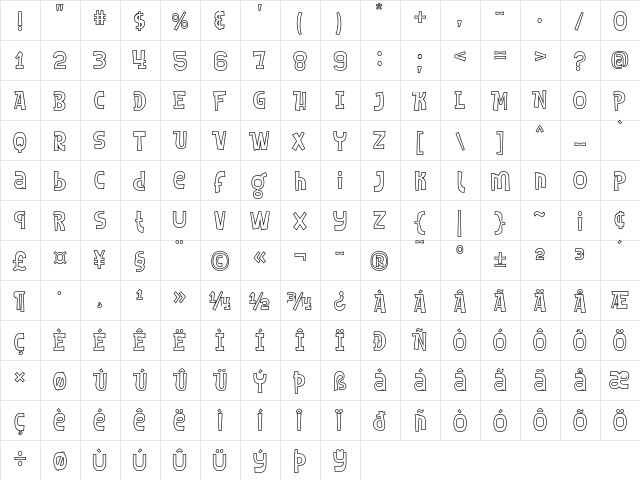
SHEROO Outline Regular
Design Context for SHEROO Outline Typeface
SHEROO Outline brings ornamental detail and strong personality to headlines and identities, where visual impact matters more than quiet functionality.
Font Pairing: Pair with a clean neutral sans-serif for body copy to let SHEROO Outline's character lead without overwhelming the composition.
Pro Tip: Use SHEROO Outline exclusively at display sizes — it was designed to be seen, not read at length. Let a neutral companion handle body copy.